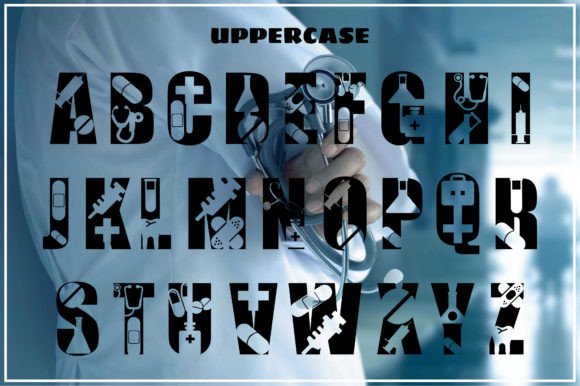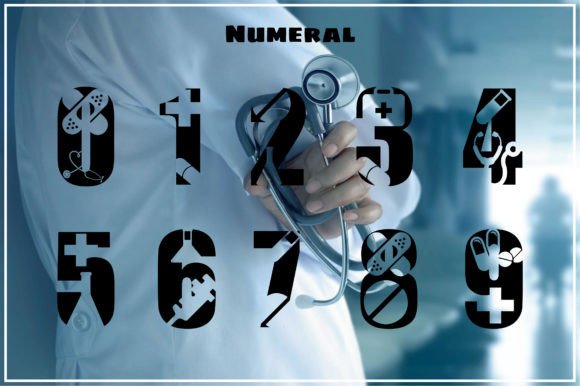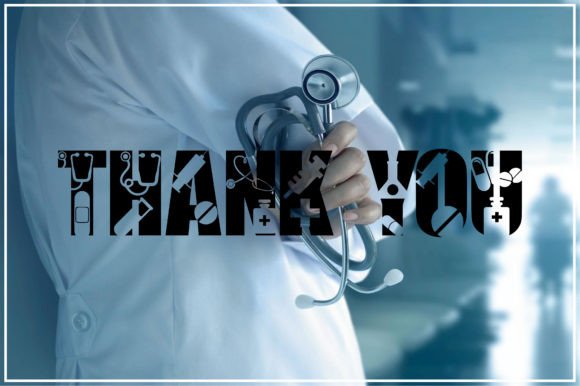
Introducing Doctor Font: A Thick Lettered and Unique Decorative Font for Healthcare Designs
Are you a designer or crafter looking for a font that can add a touch of professionalism and care to your designs? Look no further than the Doctor Font, a thick lettered and incredibly unique decorative font that’s perfect for various design ideas related to nurses, doctors, and healthcare staff.
What is Doctor Font?
Doctor Font is a decorative font that’s specifically designed to make a statement. Its thick letters and unique design make it stand out from other fonts, making it perfect for headlines, titles, and other design elements that need to grab attention. The font is highly versatile and can be used for a wide range of design projects, from brochures and flyers to posters and social media graphics.
Key Features of Doctor Font
- Thick Lettered: The font features thick letters that are easy to read and make a bold statement.
- Unique Design: The font has a unique design that’s unlike any other font, making it perfect for designers who want to add a touch of creativity to their designs.
- Decorative: The font is highly decorative, making it perfect for designs that require a touch of elegance and sophistication.
- Highly Versatile: The font can be used for a wide range of design projects, from print materials to digital graphics.
Who Can Use Doctor Font?
Doctor Font is perfect for designers and crafters who work on projects related to nurses, doctors, and healthcare staff. This includes:
- Graphic Designers: Graphic designers who work on projects for healthcare organizations, hospitals, and medical clinics can use Doctor Font to add a touch of professionalism and care to their designs.
- Crafters: Crafters who make products related to healthcare, such as nurse-themed mugs, doctor-themed t-shirts, and medical-themed accessories, can use Doctor Font to add a unique touch to their products.
- Healthcare Professionals: Healthcare professionals who want to create their own designs for presentations, posters, and other materials can use Doctor Font to add a touch of elegance and sophistication.
Design Ideas Using Doctor Font
Doctor Font can be used for a wide range of design ideas, including:
- Nurse and Doctor-themed Designs: Use Doctor Font to create designs for nurse and doctor-themed products, such as mugs, t-shirts, and accessories.
- Healthcare Brochures: Use Doctor Font to create brochures for healthcare organizations, hospitals, and medical clinics.
- Medical Posters: Use Doctor Font to create posters for medical conferences, seminars, and workshops.
- Social Media Graphics: Use Doctor Font to create social media graphics for healthcare organizations, hospitals, and medical clinics.
Tips for Using Doctor Font
Here are some tips for using Doctor Font:
- Use it for Headlines: Use Doctor Font for headlines and titles to make a bold statement.
- Pair it with Other Fonts: Pair Doctor Font with other fonts to create a unique and interesting design.
- Use it for Large Text: Use Doctor Font for large text, such as posters and billboards, to make a big impact.
| Font Name | Doctor Font |
| Author | Apple Craft |
Doctor Font is a thick lettered and incredibly unique decorative font that’s perfect for designers and crafters who work on projects related to nurses, doctors, and healthcare staff. Its versatility, elegance, and sophistication make it a great addition to any design project. With its wide range of uses and applications, Doctor Font is a must-have font for any designer or crafter looking to add a touch of professionalism and care to their designs.